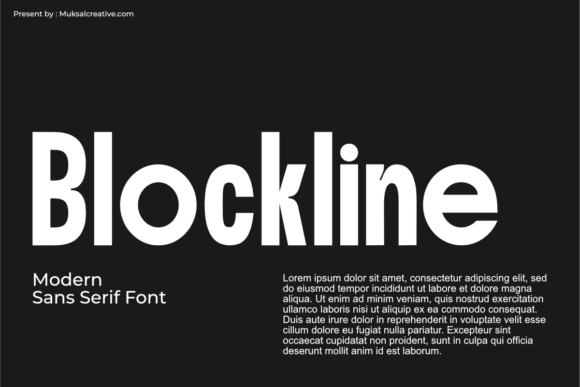
The Blockline Font: A Bold, Modern Typeface to Elevate Your Designs
I’ll never forget the time I was working on a project for a trendy new coffee shop. My client wanted a bold, eye-catching logo that would stand out on their menu and marketing materials. I spent hours scouring font websites, but nothing seemed quite right. That was until I stumbled upon Blockline – a game-changing typeface that instantly elevated my design.
With its clean lines, strong structure, and contemporary appeal, Blockline is perfect for headlines, branding, posters, and any design project that demands attention. In this article, I’ll dive into the world of Blockline, sharing my honest review, practical tips on how to use it, and some helpful FAQs.
My Honest Review of Blockline
• ✨ Versatility: Blockline’s geometric forms and slight retro touch make it suitable for both digital and print mediums.
• ✅ Impactful: This font delivers impact and style, making it perfect for striking ad campaigns or memorable logos.
• 💡 Easy to Read: Despite its boldness, Blockline remains surprisingly legible, even at smaller sizes.
While Blockline is an excellent font, it’s not perfect. Here are a few things to keep in mind:
• 🤔 Limited Serif Options: Blockline is a sans-serif font, which might limit its use in certain design projects that require a serif font.
• ⚠️ Overuse: As with any bold font, be careful not to overuse Blockline. Too much of a good thing can quickly become overwhelming.
3. Experiment with OpenType features like stylistic alternates to add some extra flair to your design.
The Story Behind Blockline
Blockline was designed with the modern designer in mind. Its creator, a talented typographer, aimed to craft a font that would be both bold and versatile. Inspired by the clean lines of urban landscapes and the geometric shapes of modern art, Blockline was born.
The designer’s goal was to create a font that would be perfect for headlines, branding, and posters – a font that would make a statement without overwhelming the design. With Blockline, they’ve achieved just that.
Q: What is Blockline font?
A: Blockline is a bold, modern typeface designed for headlines, branding, posters, and any design project that demands attention.
Q: Is Blockline suitable for digital use?
A: Yes, Blockline is optimized for both digital and print mediums, making it a versatile choice for designers.
Q: Does Blockline support OpenType features?
A: Yes, Blockline supports OpenType features, including stylistic alternates and glyphs, which can add extra depth and style to your designs.